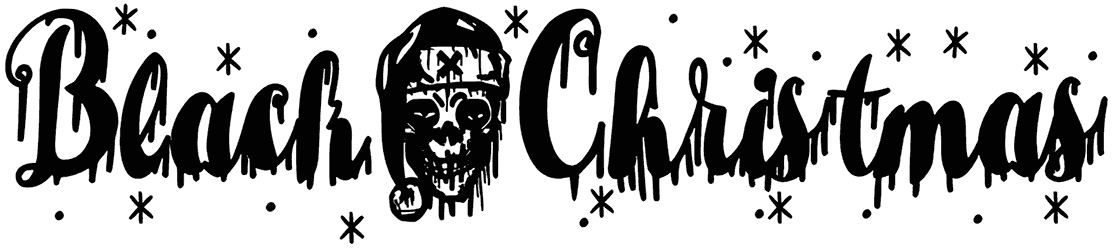
Snowy Winter Font
If you love to illustrate a winter-style design, don’t lose this snow font. Snowy Winter, with its frozen hand lettering, can be a cool item for your innovative designs. It doesn’t have lowercase but supports two sets of uppercase, and can be an entertaining show for various projects, from book covers to web graphics.
Designed by: Letterafa Studio